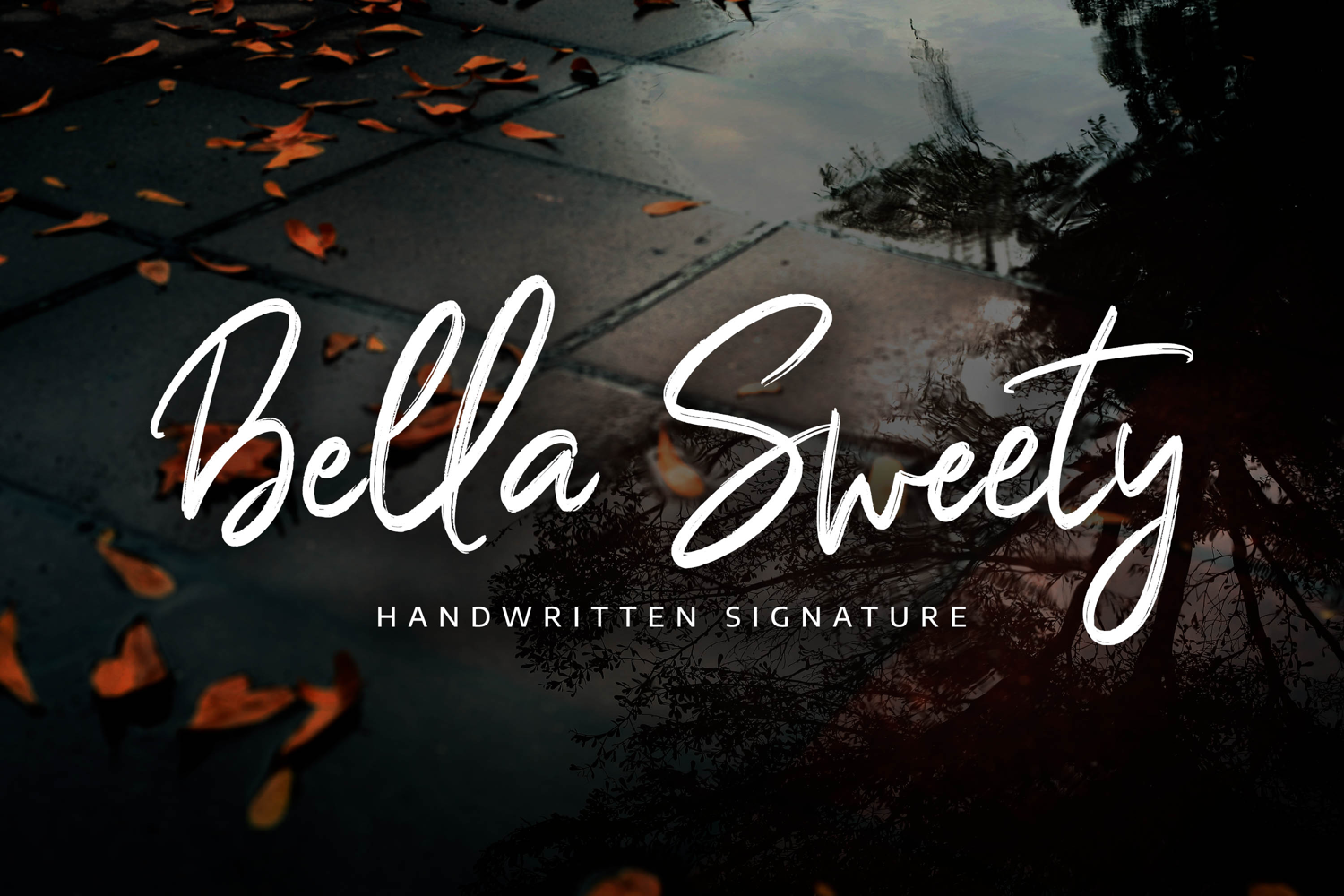
Bella Sweety - Handwritten Signature
Introducing Bella Sweety- Signature Font is a handwritten script font with a Signature Style and classy style, this font is great for your creative projects such as watermark on photography, and perfect for logos & branding, photography, invitation, watermark,advertisements,product designs, stationery, wedding designs,label ,product packaging, special events or anything that need handwritting taste.